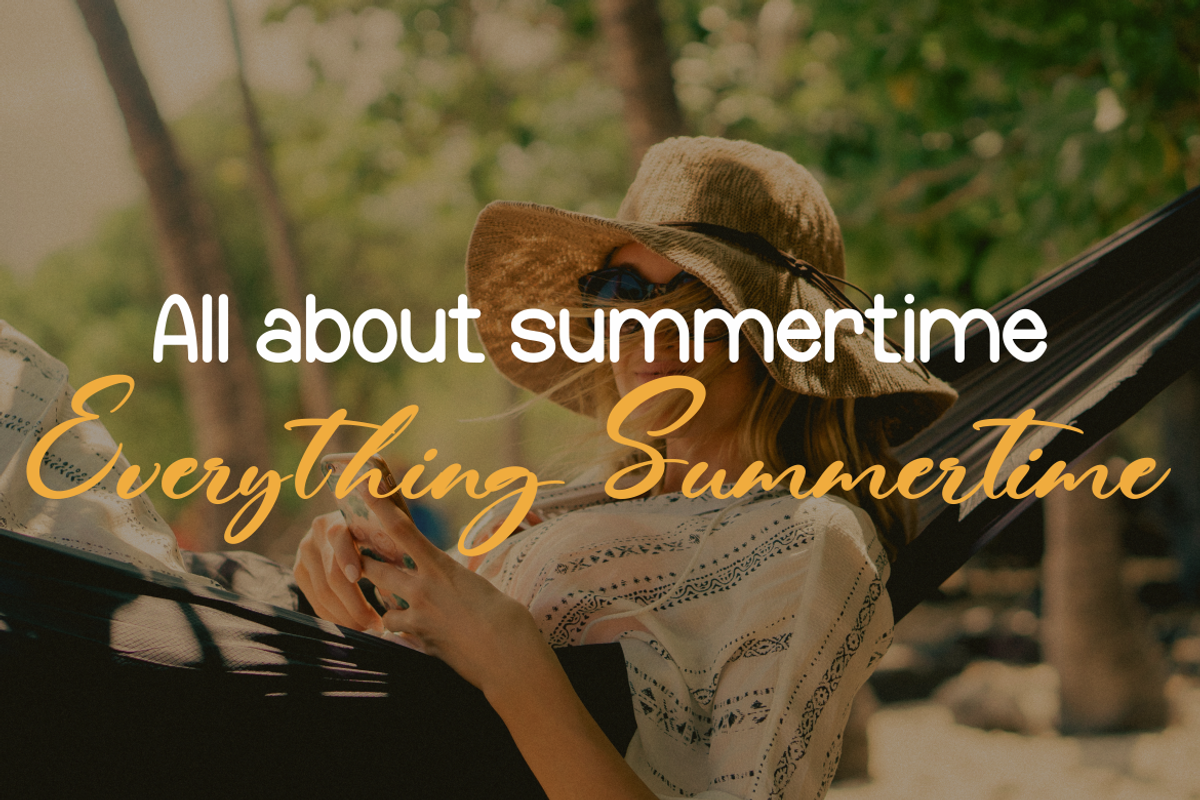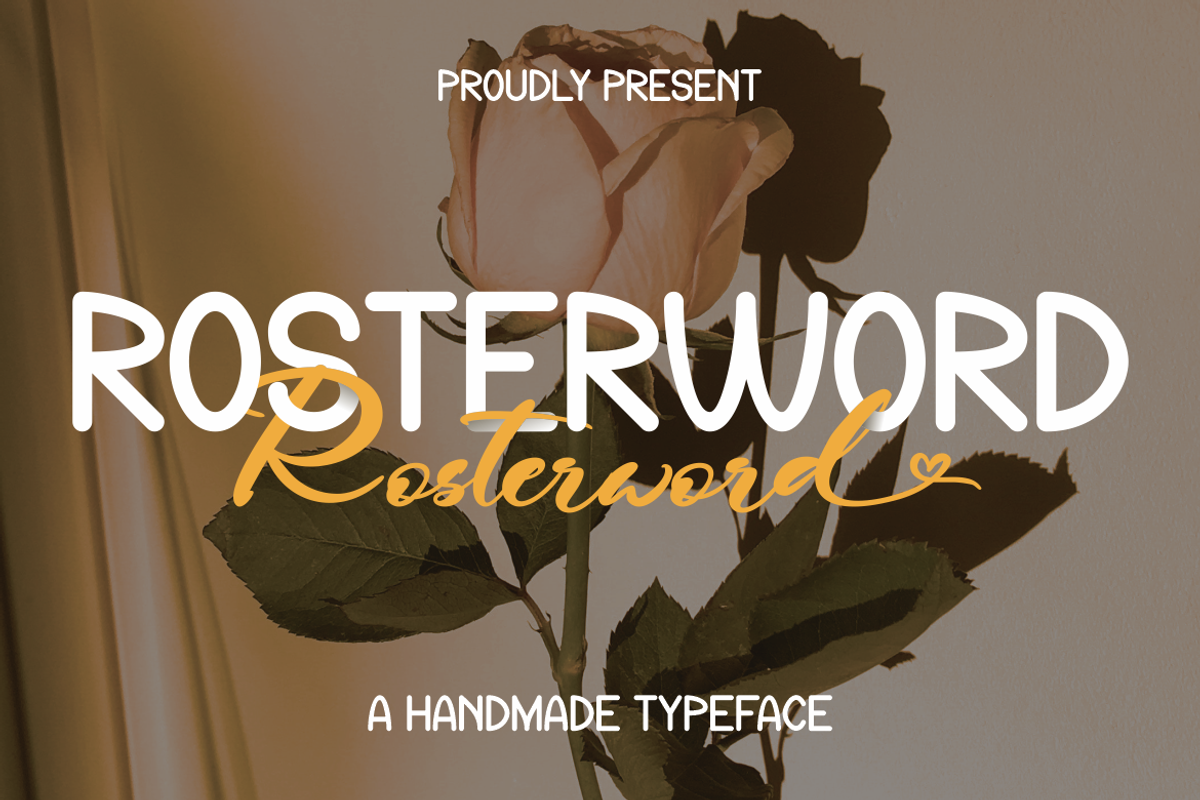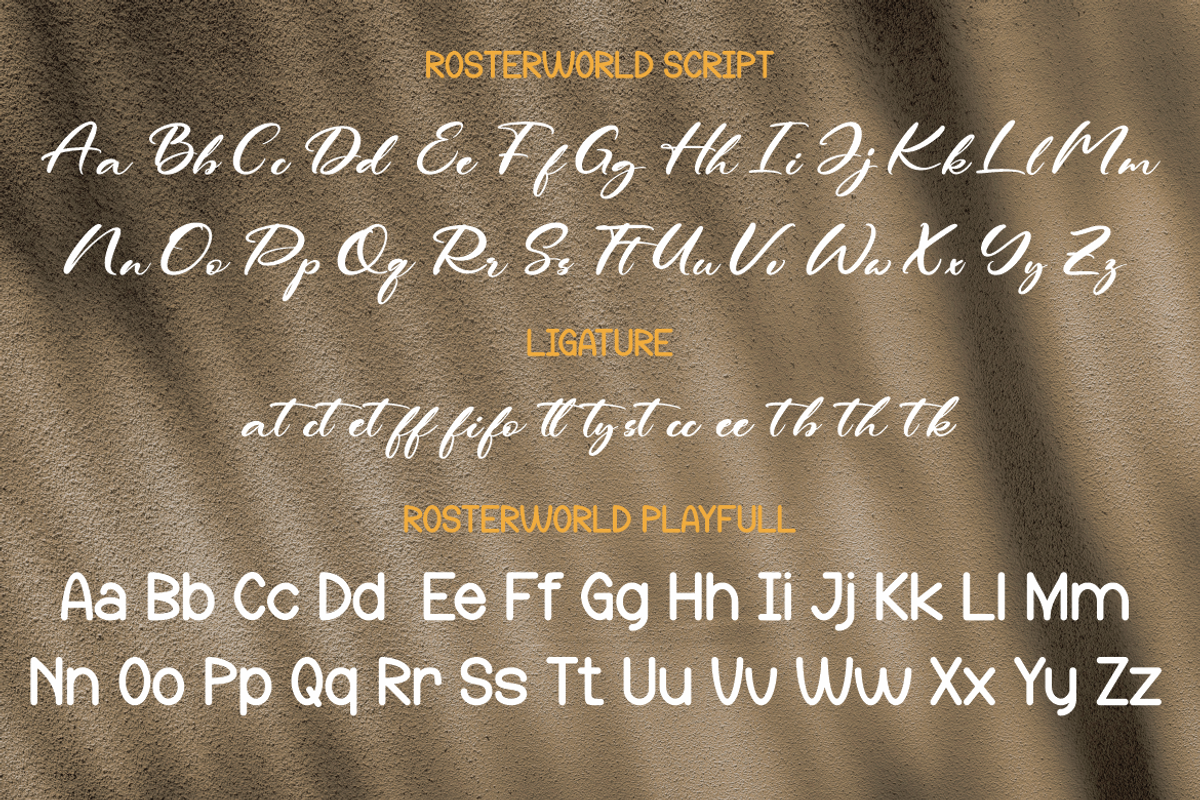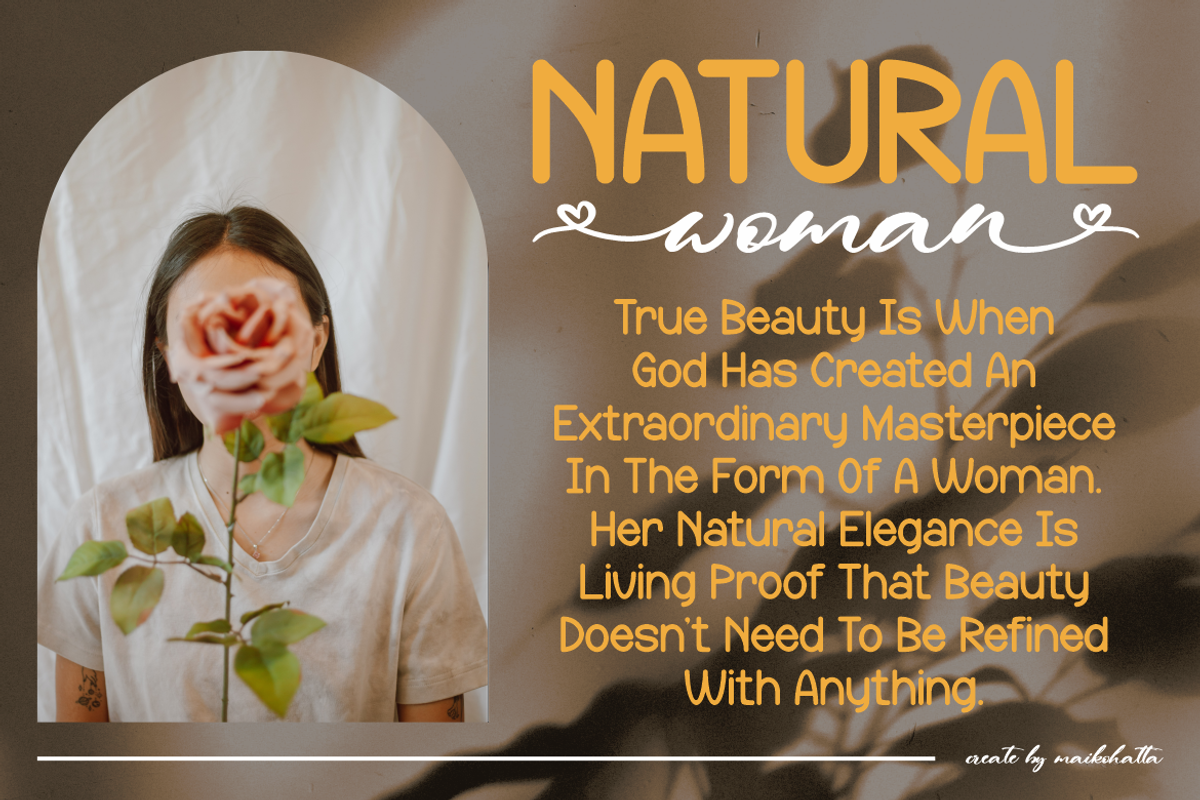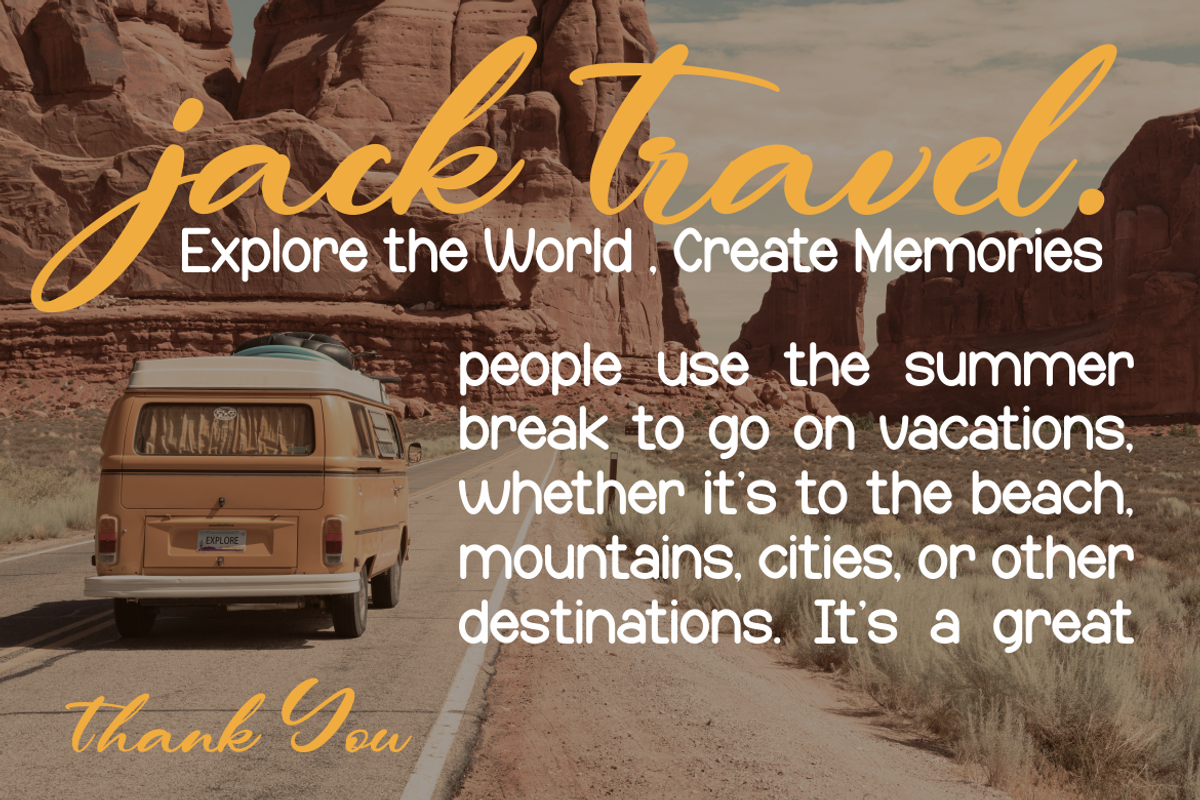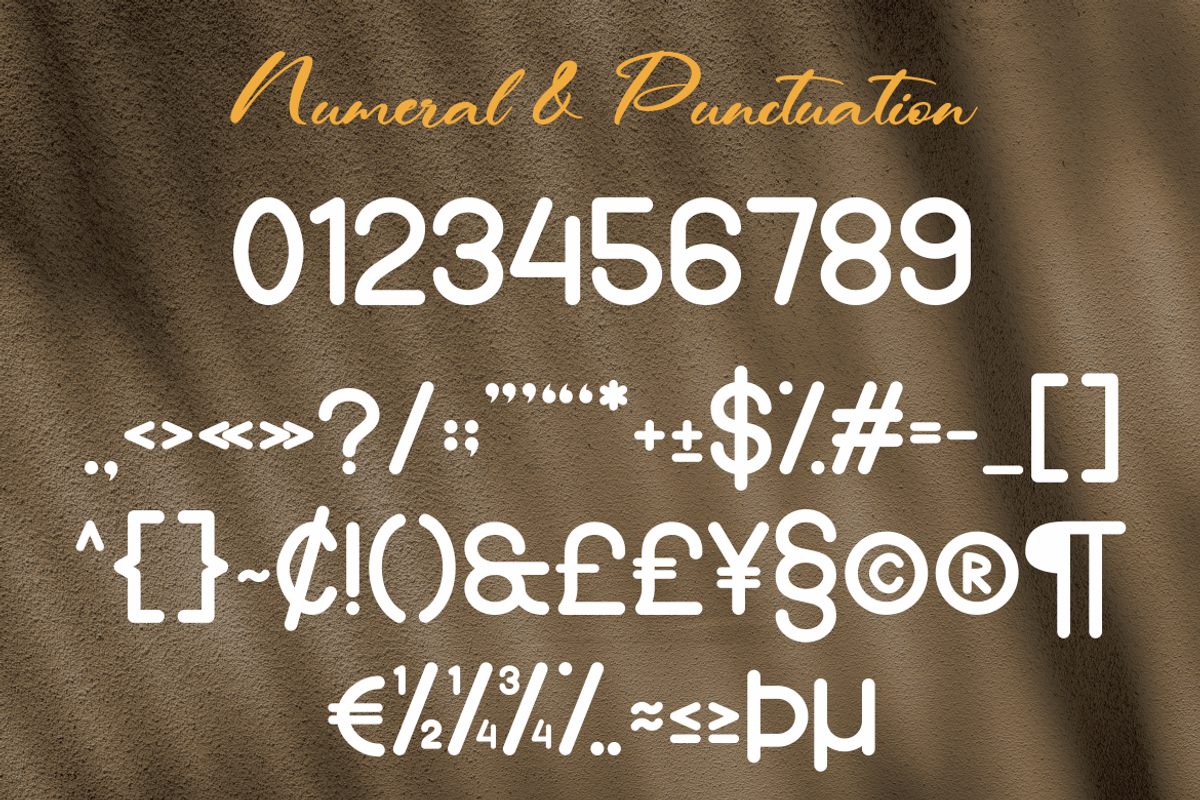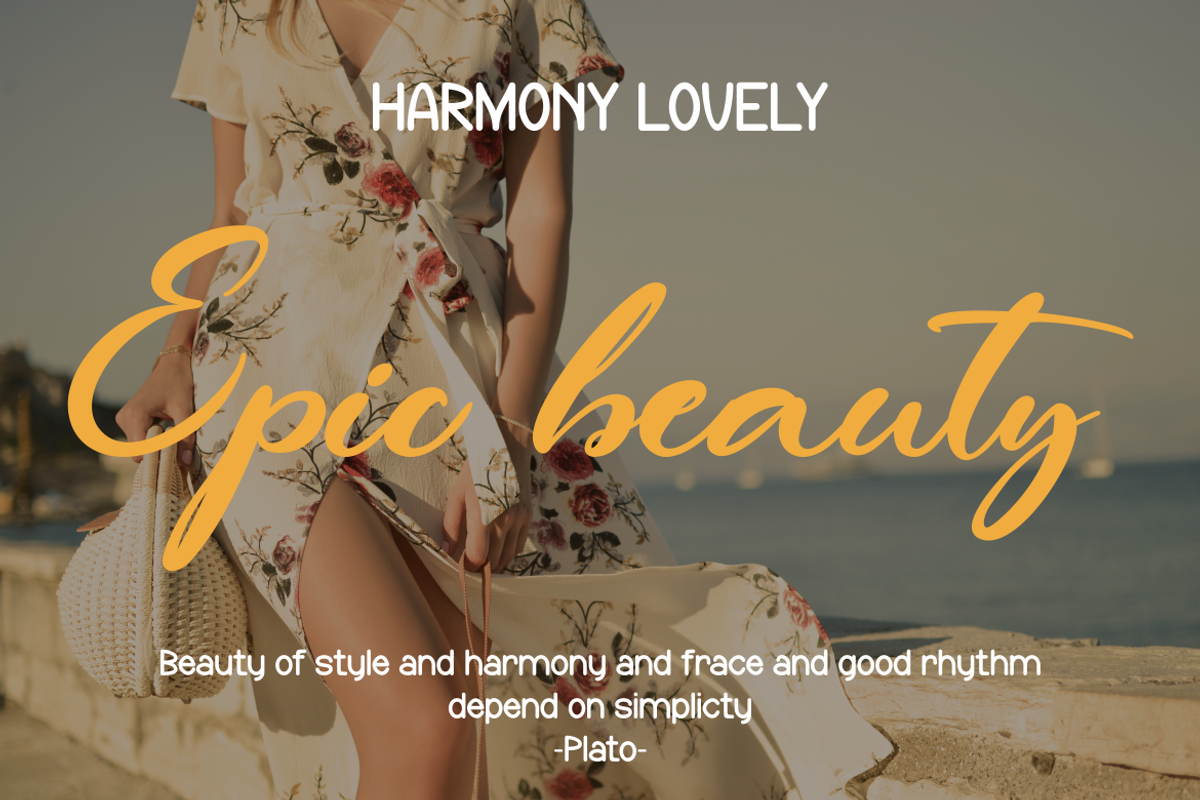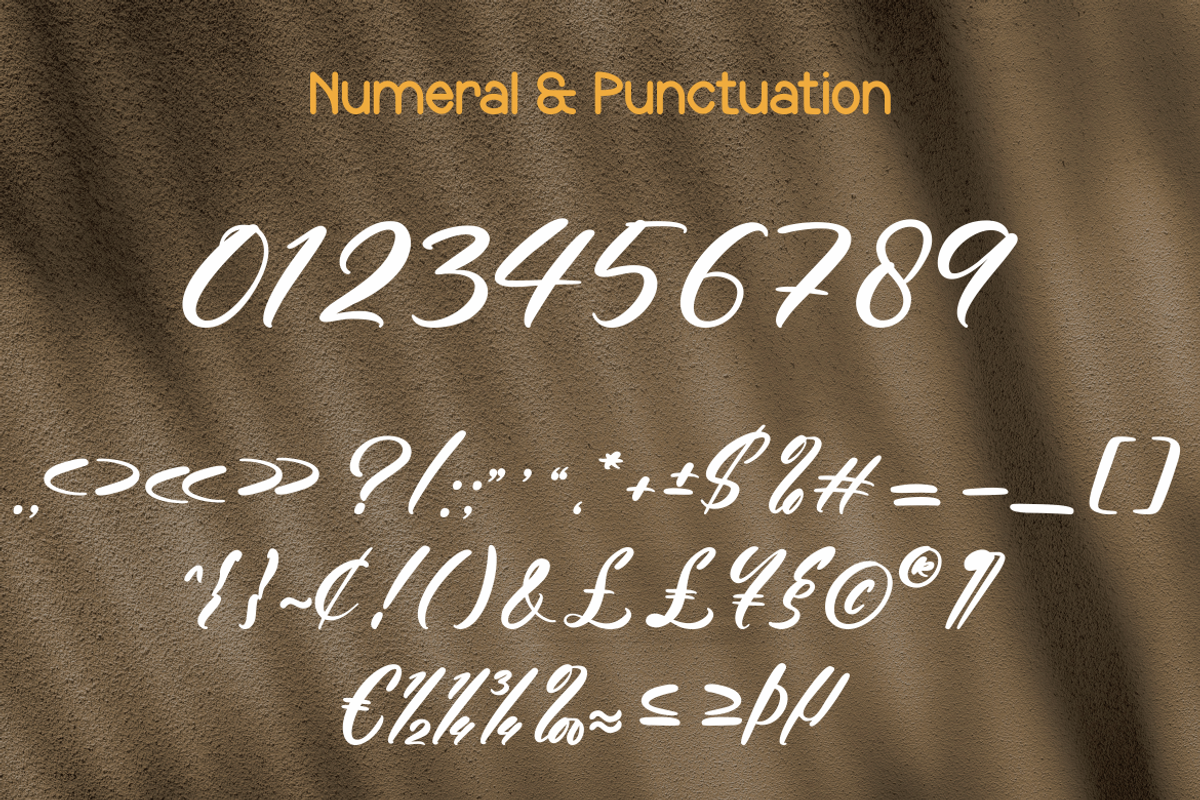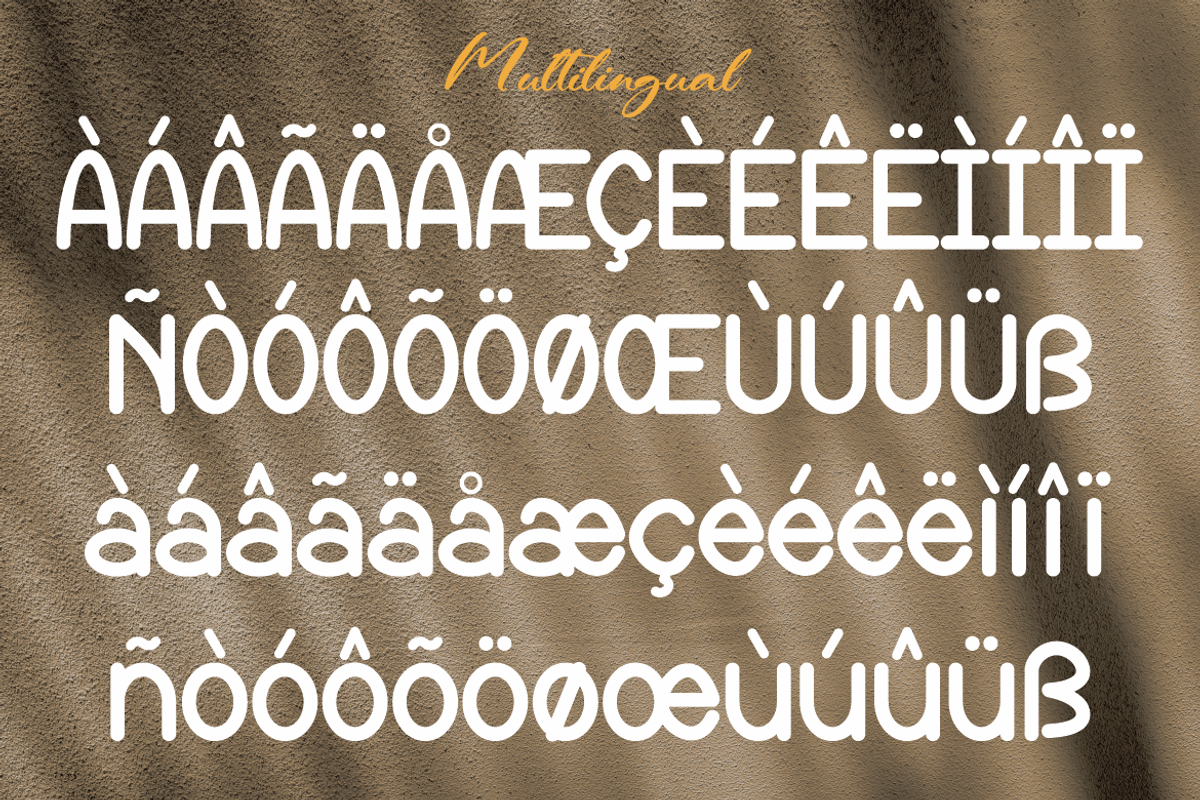
Rosterword - Handmade Typeface
Introducing our new product Rosterword Handmade Typeface
This collaboration font is a typography masterpiece that combines elements from both font styles to create a unique and eye-catching look. In this font, a beautiful hand touch is combined with a playful spirit and fun for a combination that captivates and inspires the imagination. This collaboration font can be used for design projects that want to communicate a message with a warm, personal touch while still maintaining a fun and vibrant feel.